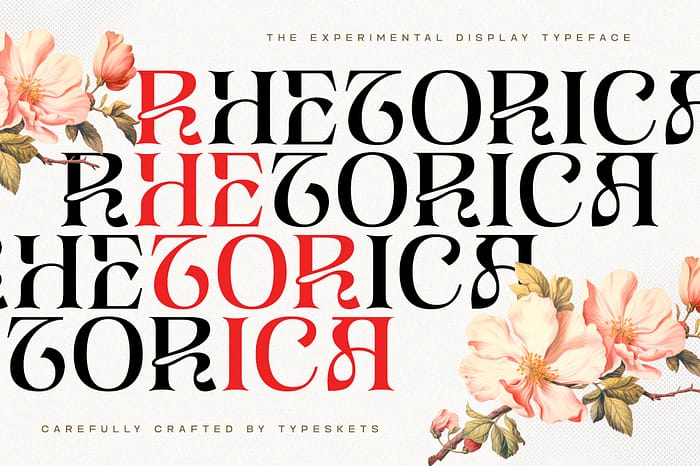
Discover the avant-garde elegance of Rhetorica, an experimental font that redefines typographic sophistication. Perfect for daring designers and innovative creatives, Rhetorica brings a unique blend of artistic flair and refined elegance to your projects.
Rhetorica stands out with its unconventional letterforms and distinctive style, making it an ideal choice for modern branding, editorial design, and eye-catching headlines. Its elegant curves and striking details create a harmonious balance between classic beauty and contemporary innovation.